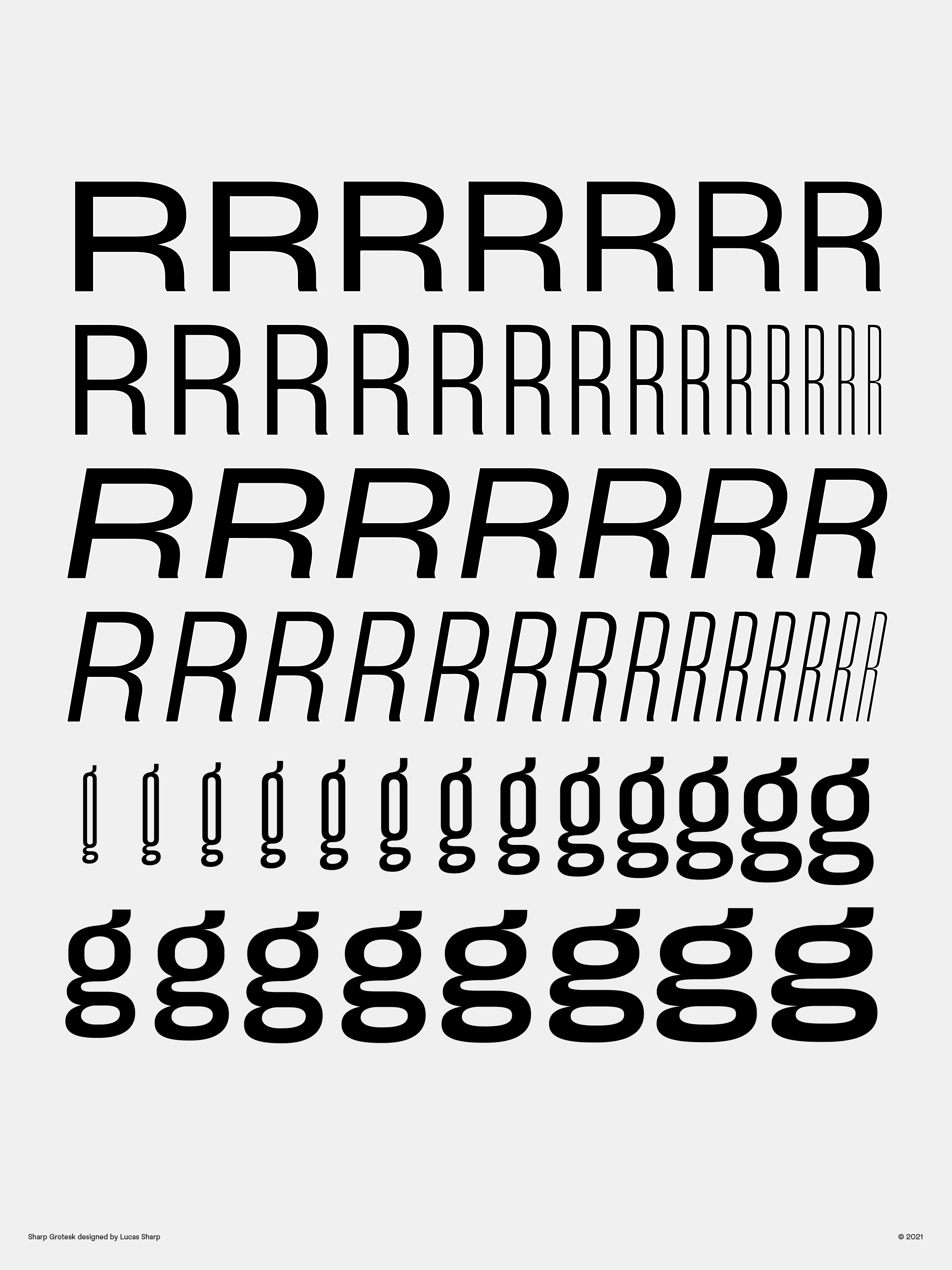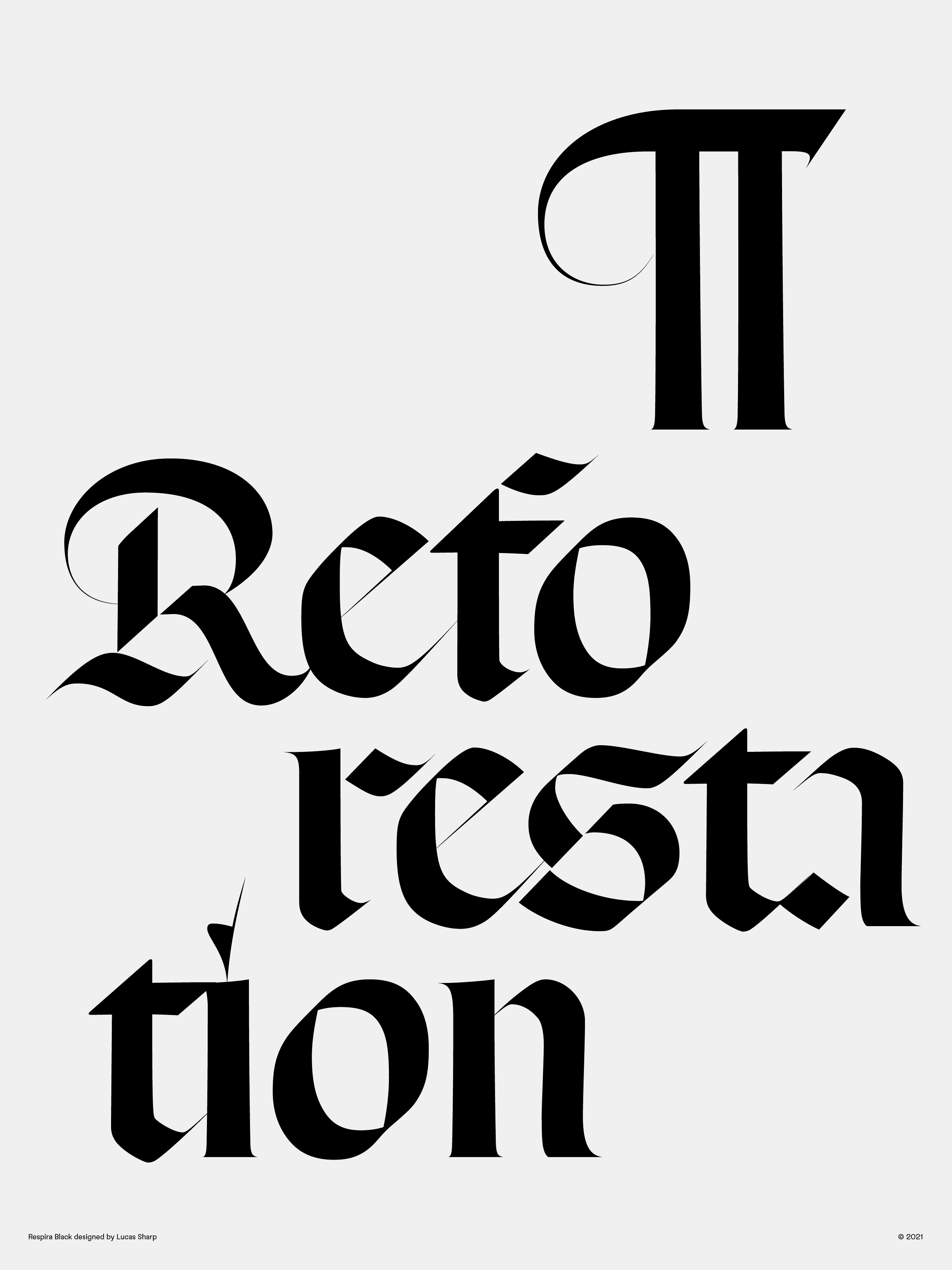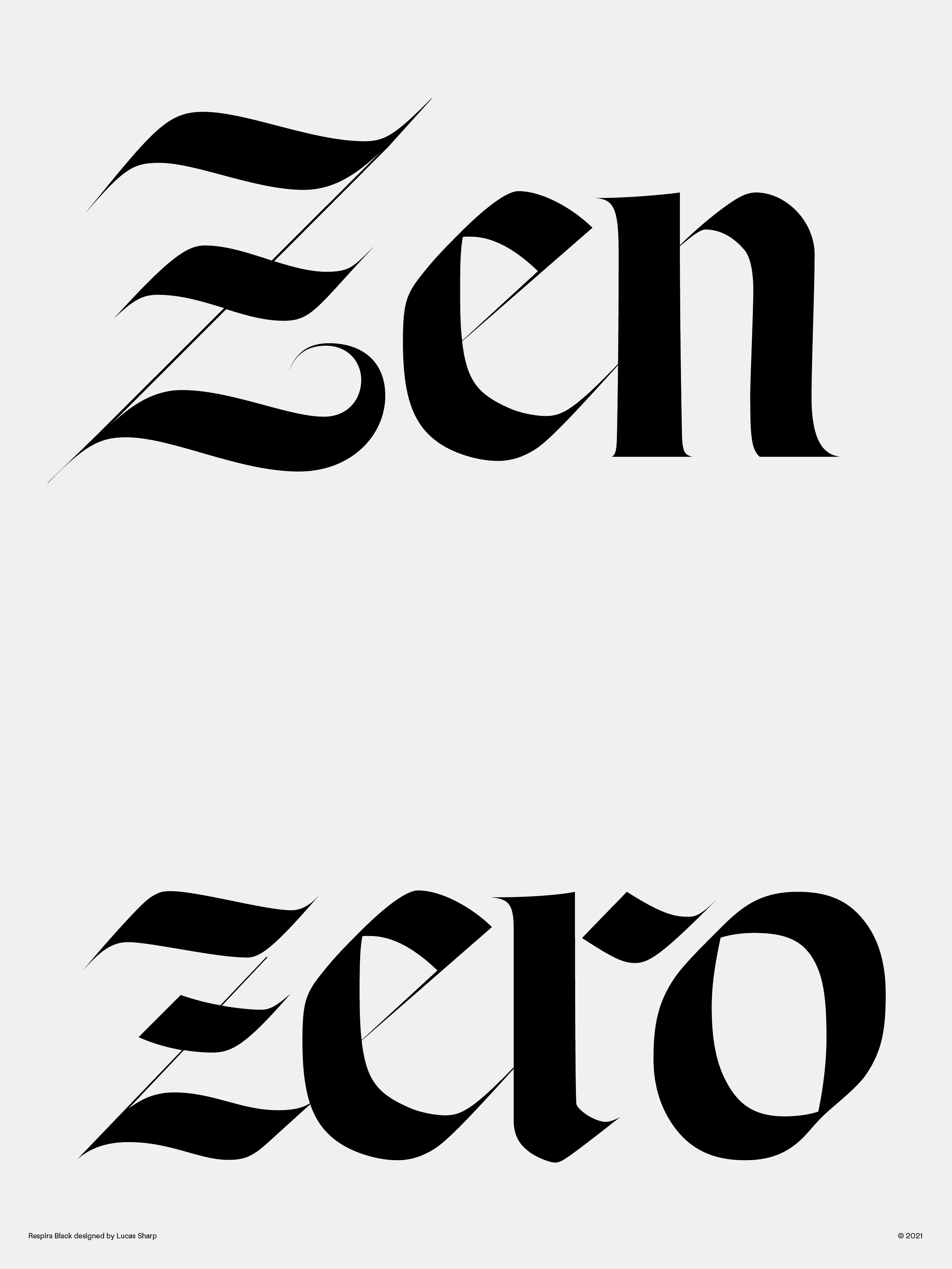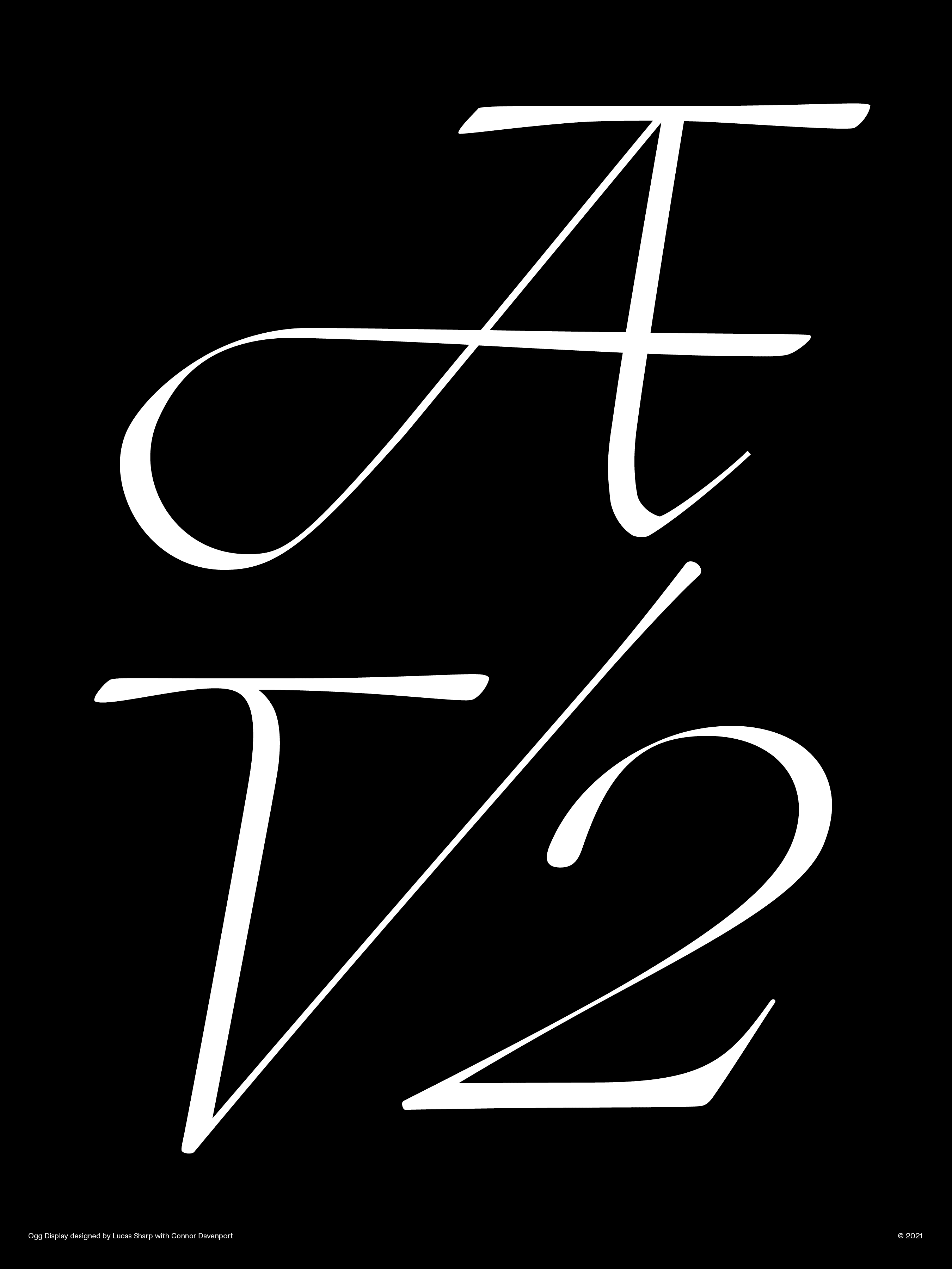
Sharp Type
Cofounded by Chantra Malee and Lucas Sharp, this type foundry remixes classic genres and reshapes the industry.
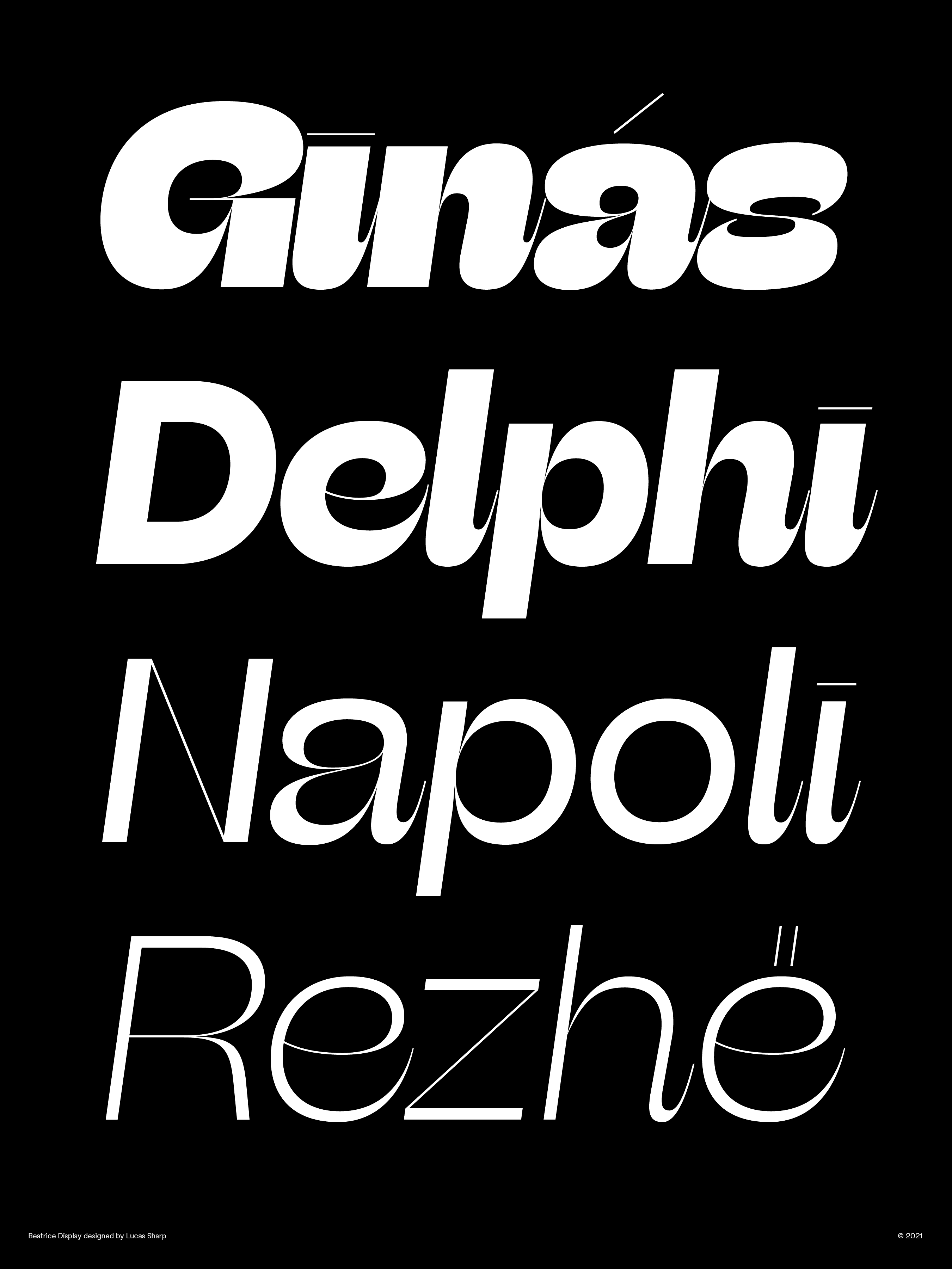
To pursue typography as a practice, designers must first overcome multiple barriers, including money, tools and education. Chantra Malee Montoya-Pimolwatana and Lucas Sharp, cofounders of Sharp Type, know this all too well, which is why with their business ethos and The Malee Scholarship—their nonprofit that supports female type designers from underrepresented ethnic groups in the industry—they’re introducing more designers to the world of typography and helping them hurdle the discipline’s barriers to entry.
I’m tempted to describe Sharp Type as a collective more than a traditional foundry. With no concrete physical location as of this interview—Malee and Sharp opened a New York City office months before the COVID-19 pandemic and have since closed it—the foundry comprises a full-time team of seven across multiple time zones. Currently, the cofounders live most of the time in Marin, California, where they’re closer to Sharp’s family. They also travel back to Newport, Rhode Island, where Malee grew up, to be near her family.
Partners in life as well as in business, the two met at Parsons School of Design in New York City, where Malee received a bachelor’s in business from the university’s design and management program. “It was kind of what it sounds like,” she explains. “You basically take a lot of graphic design and design theory classes as well as standard business courses. Growing up in a very entrepreneurial family, my end goal was to be an entrepreneur.” Upon graduating, Malee scored her first job as a project manager at Love & War, a boutique branding agency in New York City, and eventually became a senior project manager.
At the same time, Sharp attended Parsons for the communication design program. “I came from a fine arts background, but both of my parents were kind of starving-artist types,” he explains. “That economic impetus pushed me toward commercial arts with the idea to not take on some student debt.” However, Sharp’s studies left him wanting a more fundamentally creative practice. “I’d always been a student of form,” he says. “Type design returned me to working with raw counterforms, negative and positive space, and playing with form. I could explore the beauty of that without having to be pulled into a teacher’s or a client’s expectations—a niche within this larger world.
“Also, just like everything in life,” he continues, “I had a really good teacher.” Joshua Darden, founder of New York–based foundry Darden Studio, mentored Sharp in type design while teaching as an adjunct professor at Parsons. “Joshua was a window into the world of type design, and I just soaked it up,” Sharp recalls. He would eventually intern at Darden Studio and then continue to work as a freelance type designer there.
It was when Malee and Sharp had moved in together and several years had passed when Sharp came up with a business proposal. He had been building up a library of fonts and was looking for a partner who would take on the responsibilities of project and foundry management. On the other side, Malee was looking for an opportunity to begin a business of her own. “But it was a big leap of faith for both of us,” she says, “because living together is already a [challenge] when you’re young—and then deciding to run a business out of your one-bedroom apartment?”
Both Sharp and Malee laugh, and then she resumes: “But really, it evolved very quickly into something serious. I think we both realized what we brought to the table. And that’s how it all started.”
Type design returned me to working with raw counterforms, negative and positive space, and playing with form. I could explore the beauty of that without having to be pulled into a teacher’s or a client’s expectations—a niche within this larger world.”
—Lucas Sharp
In 2015, the two cofounded Sharp Type in their New York City apartment. After about six months there, they moved to Spain, first to Granada and eventually to Madrid. Malee, who’s of Thai, Spanish and Native American descent, had studied Spanish at a summer program there. When Sharp suggested they move, she jumped at the chance, and the foundry began a productive two-year stint, landing some big clients in short order. In 2015, Samsung commissioned a customized version of Sharp Sans, the foundry’s flagship sans serif, for its Galaxy line of products; soon, Samsung Sharp Sans would become the conglomerate’s official font for all its communications. In 2016, Michael Bierut of Pentagram engaged the foundry for a sturdier version of Sharp Sans for Hillary Clinton’s 2016 presidential campaign.
“It became pretty clear that we were cumulatively so much bigger than the sum of our parts,” says Sharp. “Having Malee’s organizational skills, project management skills, strategic mind, and the vision of our connections and talent network let us take on ambitious projects that would have been unfathomable on my own.”
Malee returns the compliment: “Obviously, we wouldn’t be successful without good product,” she says. “Lucas brought that to the team, and he also has an incredible vision for how to grow our library and identify our market and ideal clientele.”
The pair’s vision for Sharp Type was a combination of artistry and utility that would captivate designers. “We want to appeal to a large audience, but we also don’t want to be pigeonholed into any one genre. We want to keep our library incredibly diverse, fresh and forward thinking,” says Malee. “What’s great about how Lucas proceeds in type design is that his ideas always originate from something external that he just has to pursue.”
If one thing is certain, Sharp Type’s future gleams with many more diamonds from the team’s minds. And there’s an incentive for us to stay sharp: “We’re going to come out with some bangers in 2022,” Malee promises.